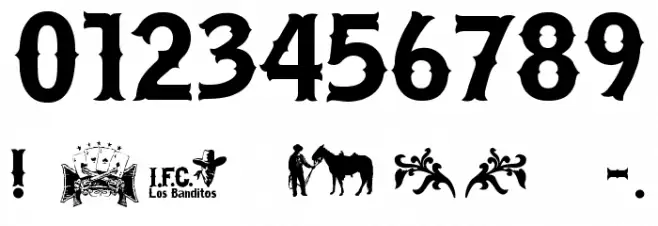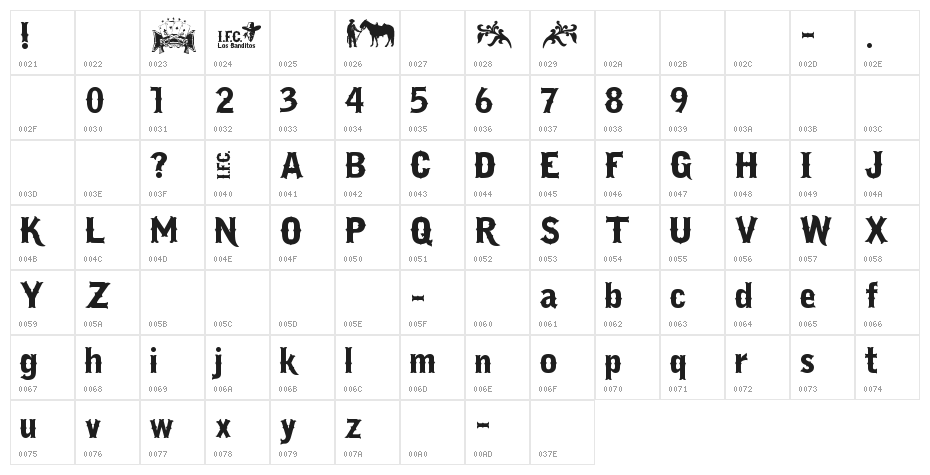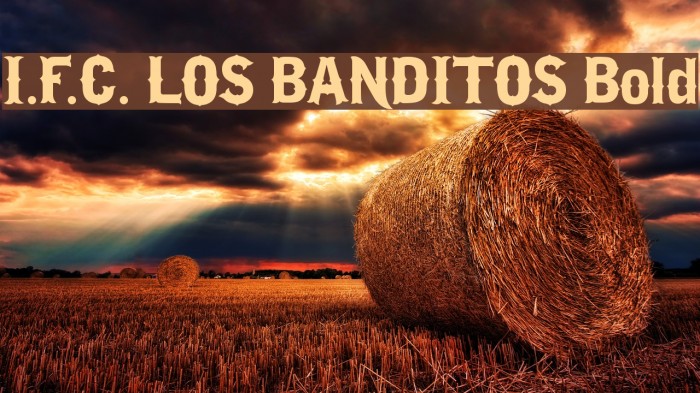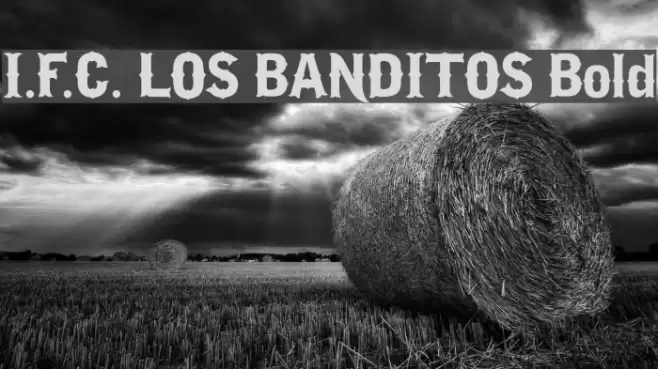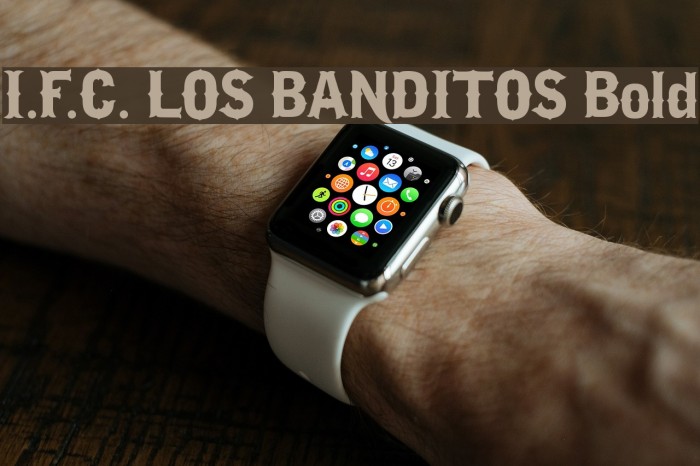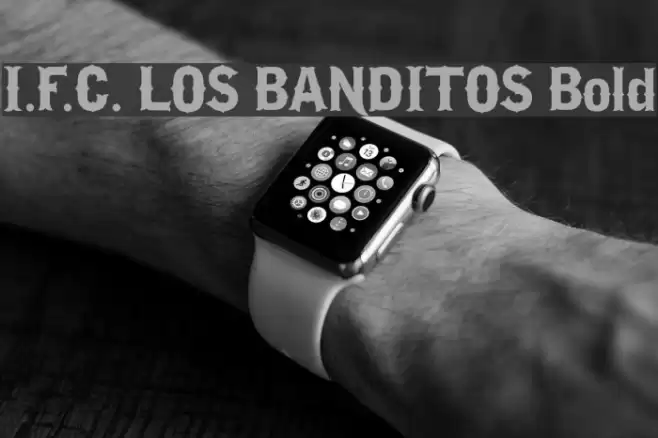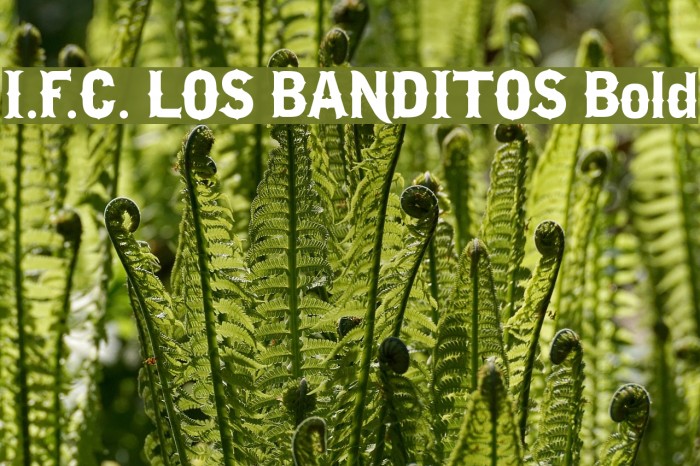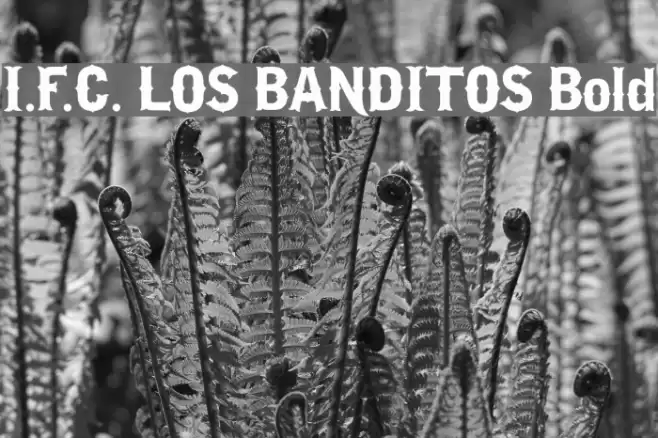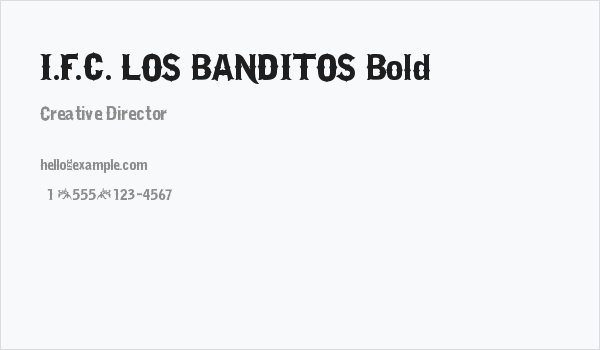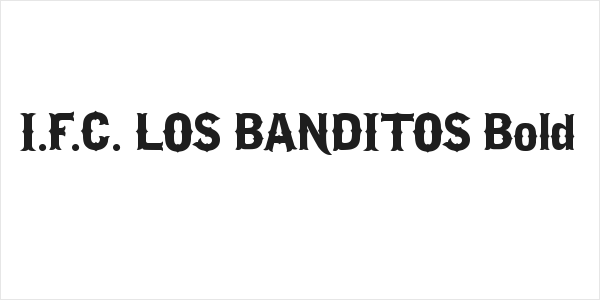
I.F.C. LOS BANDITOS Bold Font
I.F.C. LOS BANDITOS Bold Description
This font features a bold, decorative style with a distinct Western flair. The characters are heavily stylized with sharp edges and unique serifs that give it a rugged, adventurous look. The uppercase and lowercase letters maintain a consistent design, with exaggerated curves and angles that enhance its boldness. Numbers and special characters follow the same thematic style, ensuring a cohesive appearance across all text. The font's design is reminiscent of old Western posters, making it ideal for projects that require a vintage or thematic touch.